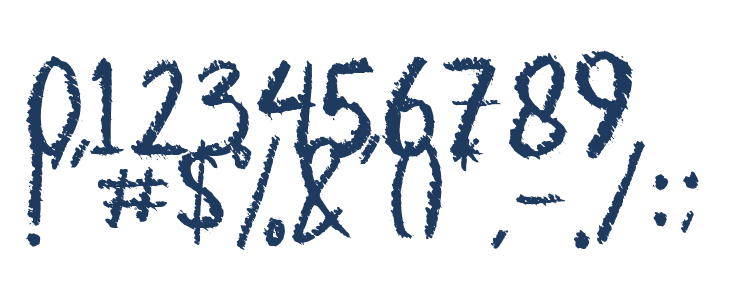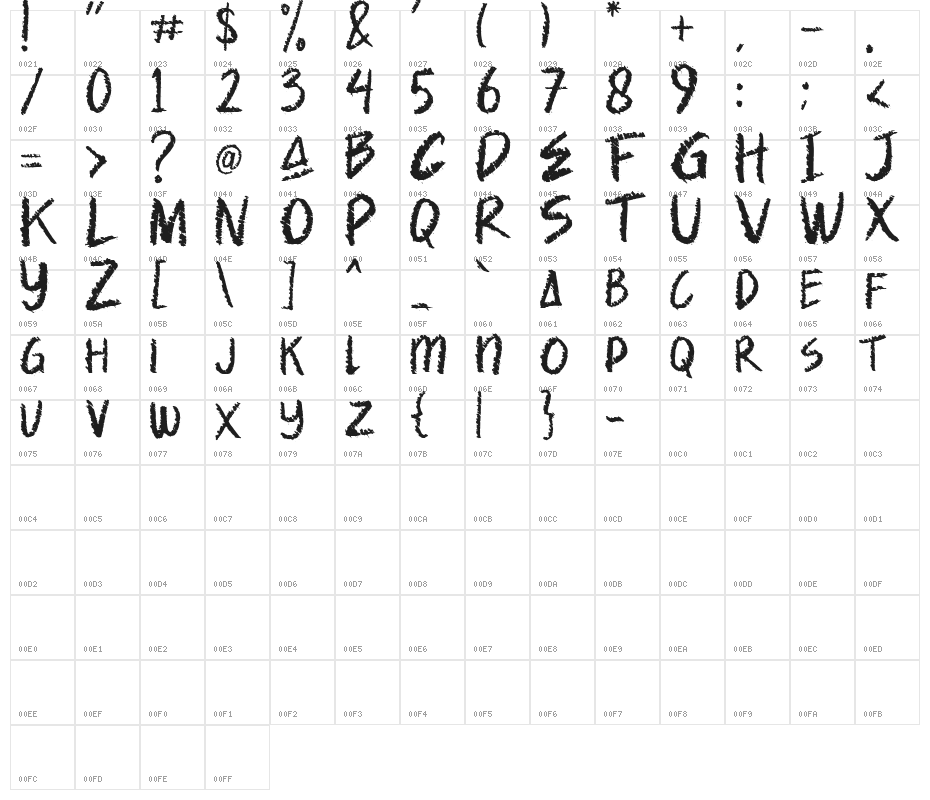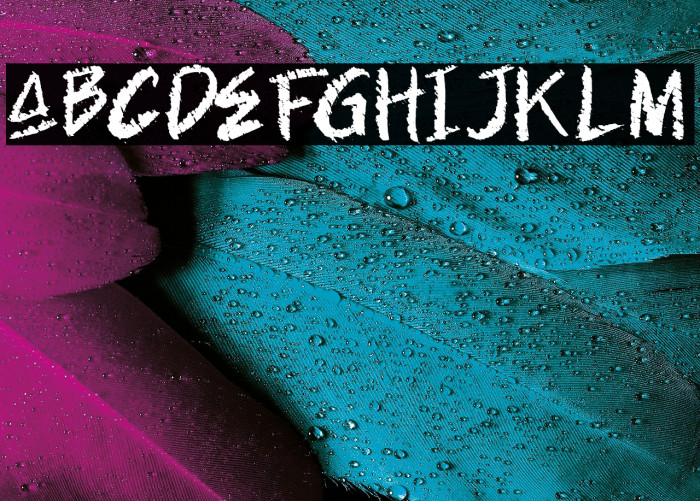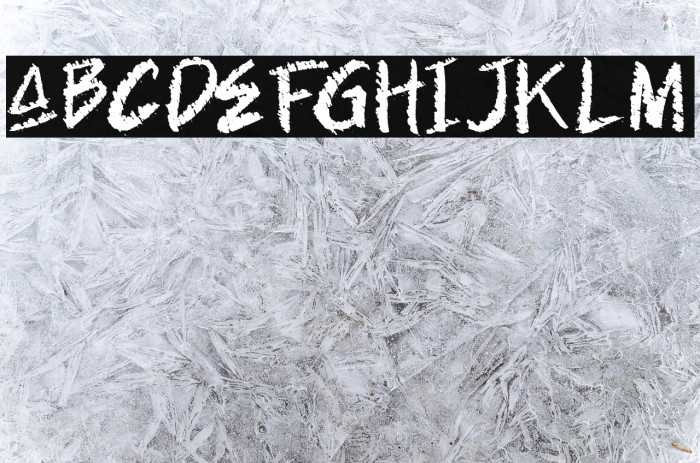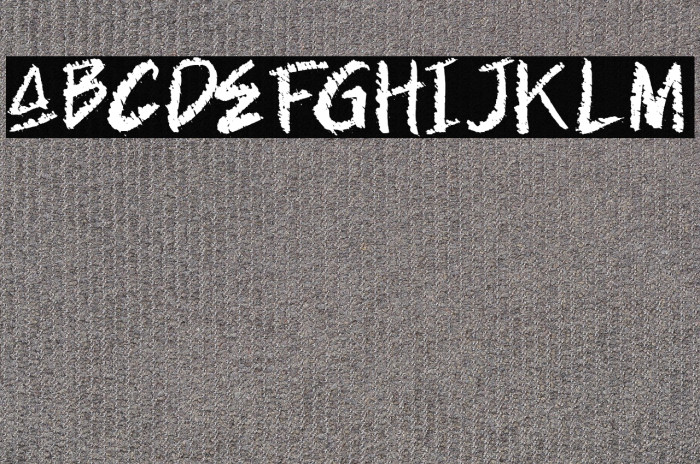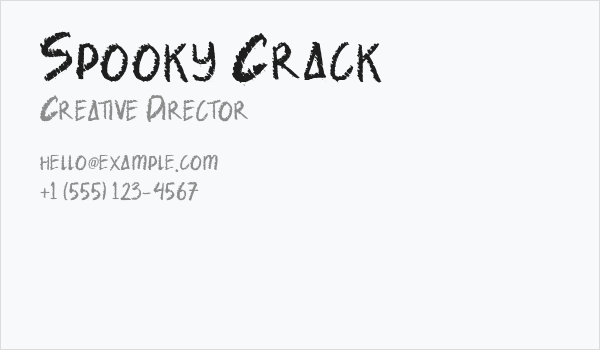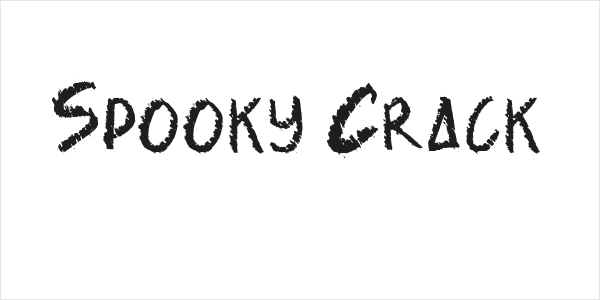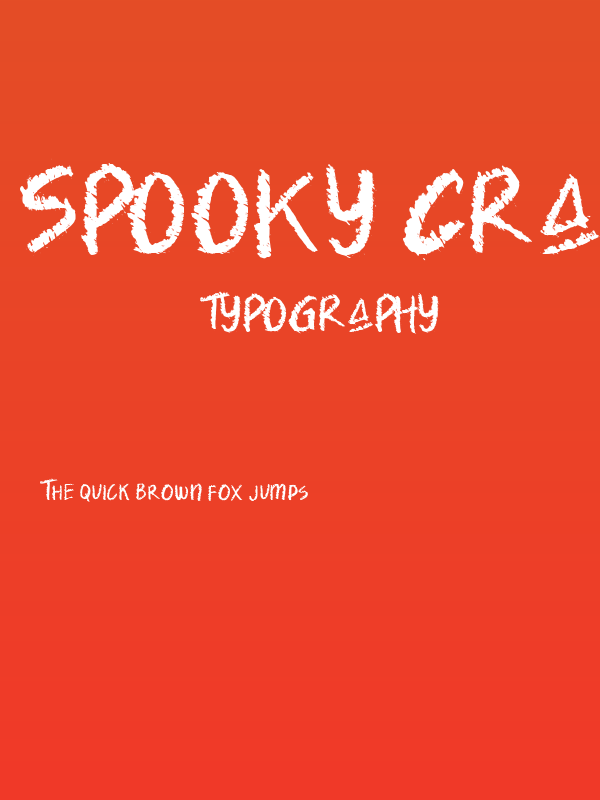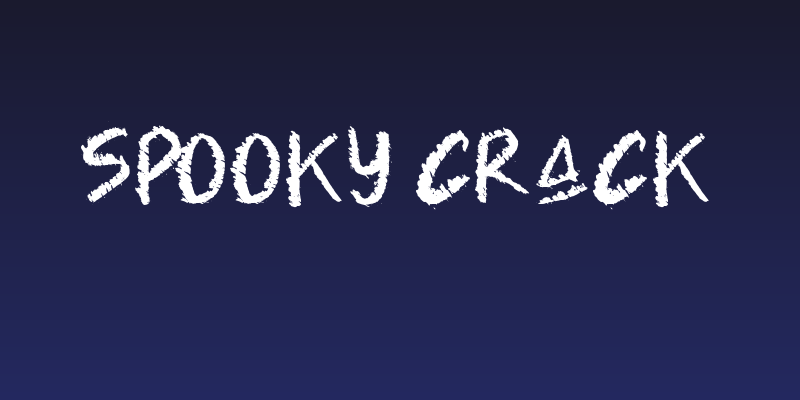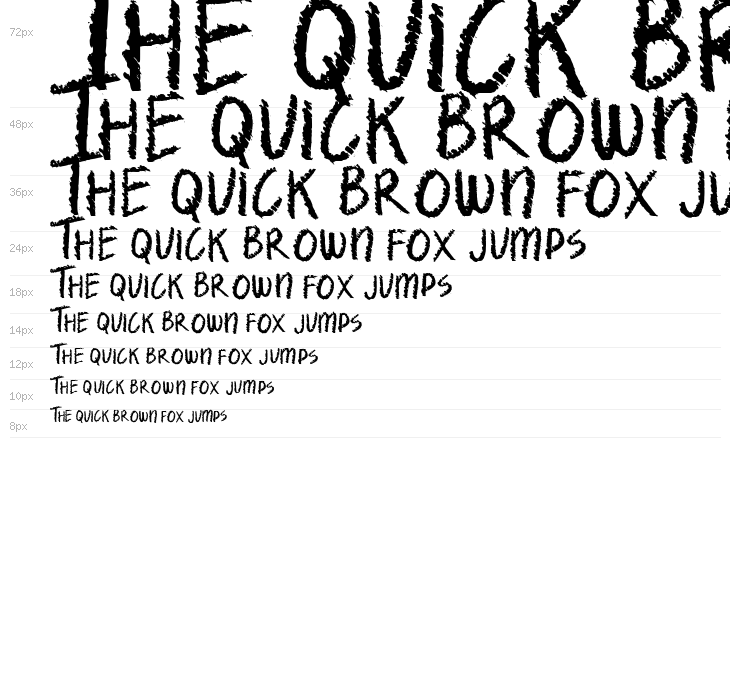
Spooky Crack Font
This font features a jagged, distressed style that evokes a sense of unease and mystery. The characters appear as if they have been scratched or carved, with uneven edges and a rough texture. This design choice gives the font a dynamic and energetic feel, making it ideal for themes related to horror, Halloween, or anything that requires a spooky atmosphere. The uppercase and lowercase letters maintain a consistent style, with the uppercase being slightly larger and more pronounced. Numbers and special characters are also included, following the same distressed aesthetic, ensuring a cohesive look across all text elements.
| Proposed Projects | Ideal for Halloween posters, horror movie titles, haunted house flyers, and themed party invitations. |